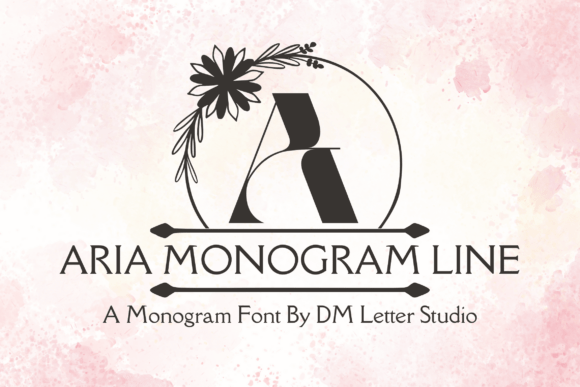
Aria Monogram Line Font: Elevate Your Branding with Elegance and Versatility
In the world of typography, a well-crafted font can make all the difference in creating a lasting impression. Introducing Aria Monogram Line Font, a meticulously designed typeface that embodies the essence of luxury and sophistication. This exquisite font is perfect for creating stunning monograms and logos that exude elegance and refinement.
Key Features of Aria Monogram Line Font
- Meticulously crafted details: Every element of Aria Monogram Line Font has been carefully designed to ensure a high level of intricacy and precision.
- Elegant and versatile: This font is perfect for a wide range of applications, from luxurious branding to wedding invitations, sophisticated stationery, and bespoke crafts.
- Perfect for monograms and logos: Aria Monogram Line Font is specifically designed to create eye-catchingly beautiful monograms and logos that make a lasting impression.
Endless Possibilities with Aria Monogram Line Font
This versatile font can be used in a variety of creative projects, including:
- Luxurious branding: Elevate your brand’s image with a sophisticated logo or monogram that exudes elegance and refinement.
- Wedding invitations: Create beautiful and memorable wedding invitations that set the tone for a luxurious and unforgettable celebration.
- Sophisticated stationery: Add a touch of elegance to your stationery, including business cards, letterheads, and envelopes.
- Bespoke crafts: Use Aria Monogram Line Font to create unique and personalized crafts, such as customized jewelry, home decor, or art pieces.
Designing with Aria Monogram Line Font
When designing with Aria Monogram Line Font, the possibilities are endless. Here are a few ideas to get you started:
- Classy logos: Create a sophisticated logo that incorporates your brand’s initials or a meaningful symbol.
- Timeless curios: Design unique and eye-catching curios, such as customized wall art, decorative boxes, or paperweights.
- Personalized gifts: Use Aria Monogram Line Font to create personalized gifts, such as monogrammed towels, blankets, or jewelry.
The Benefits of Using Aria Monogram Line Font
By incorporating Aria Monogram Line Font into your design projects, you can:
- Elevate your brand’s image: Create a sophisticated and luxurious image that sets your brand apart from the competition.
- Add a touch of elegance: Infuse your designs with a sense of refinement and poise that is sure to impress.
- Stand out from the crowd: Use Aria Monogram Line Font to create unique and eye-catching designs that capture attention and leave a lasting impression.
Tips and Tricks for Using Aria Monogram Line Font
To get the most out of Aria Monogram Line Font, here are a few tips and tricks to keep in mind:
- Experiment with different colors: Try pairing Aria Monogram Line Font with different colors to create a unique and eye-catching design.
- Play with font sizes: Experiment with different font sizes to create visual interest and hierarchy in your design.
- Combine with other fonts: Try pairing Aria Monogram Line Font with other fonts to create a unique and sophisticated typography.
Aria Monogram Line Font is a versatile and elegant typeface that is perfect for creating stunning monograms and logos. With its meticulously crafted details and sophisticated design, this font is sure to elevate your brand’s image and add a touch of luxury to your designs. Whether you’re designing a classy logo, creating timeless curios, or simply looking to add a touch of elegance to your work, Aria Monogram Line Font is the perfect choice.